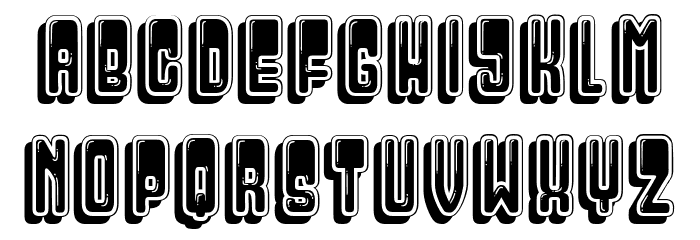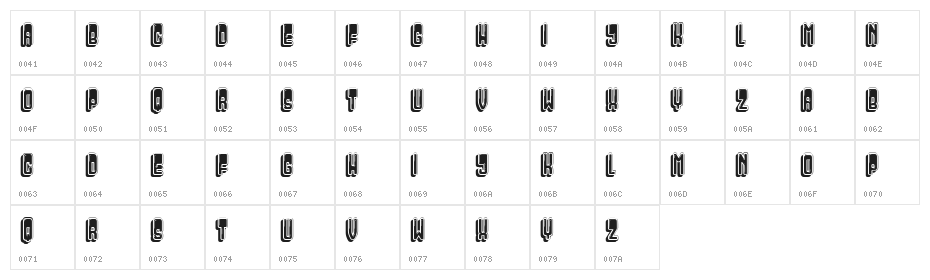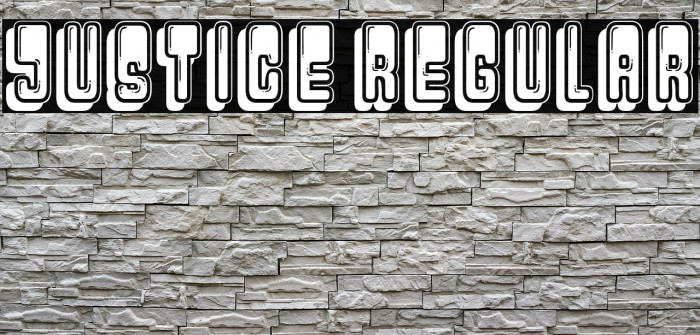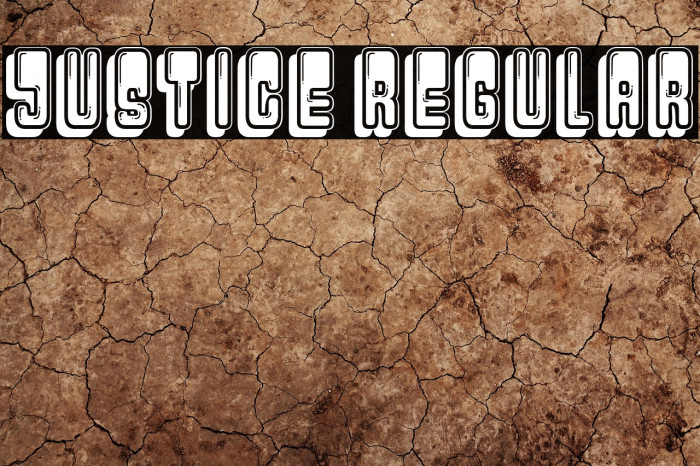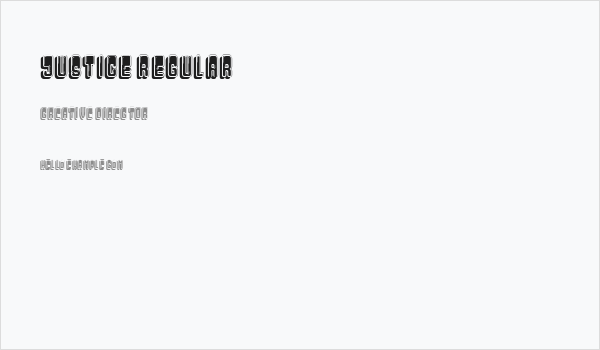
Justice Regular Font
This font features a bold, impactful design with a strong outline that gives each character a three-dimensional appearance. The letters are uppercase, with a consistent height and width, creating a uniform look. The style is reminiscent of retro or vintage signage, with a playful yet commanding presence. The thick strokes and outlined edges make it highly legible from a distance, suitable for attention-grabbing headlines or titles. The font's unique style is both decorative and functional, making it versatile for various design projects.
A bold, outlined font with a retro, three-dimensional look.
- Font: Justice Regular
- Overall Style: Vintage